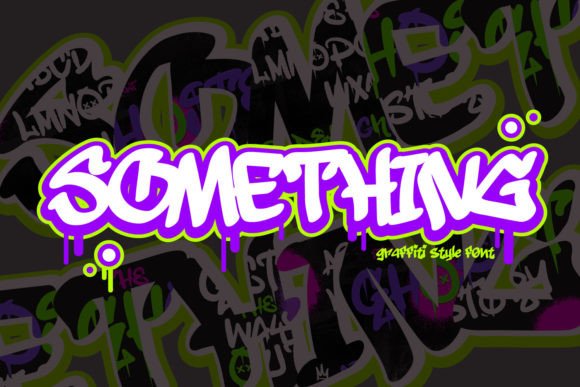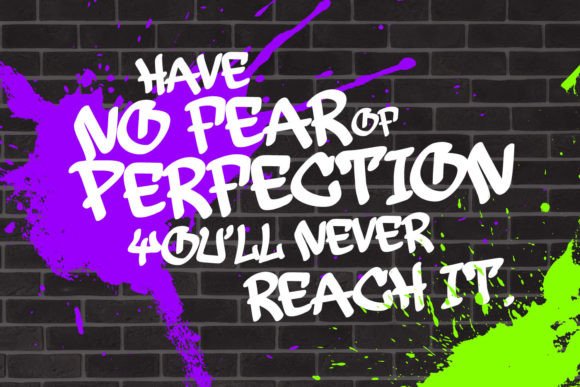
Something is an awesome, graffiti-style display font that has a cool, street art vibe. This font is suitable for designs such as t-shirts, sportswear, logos, advertisements, clothing, and more.
Something Font